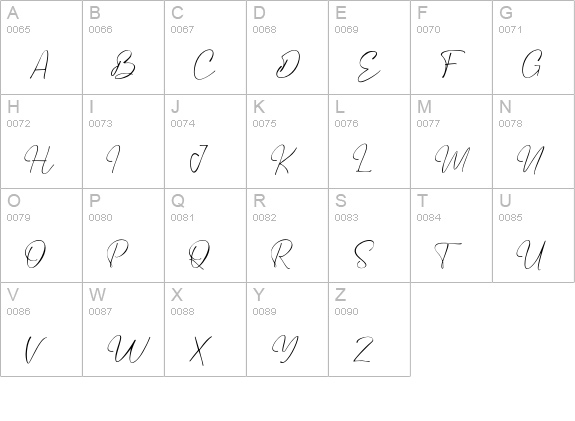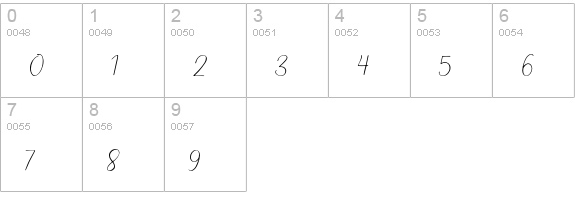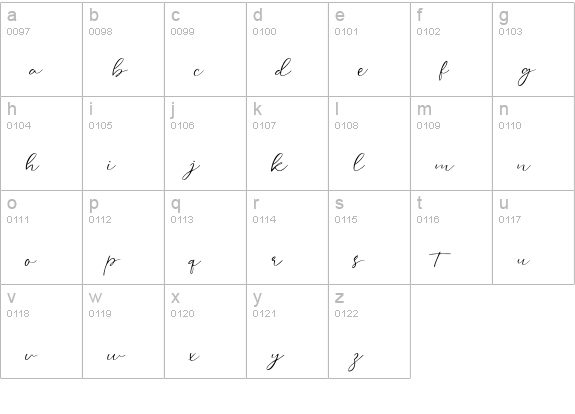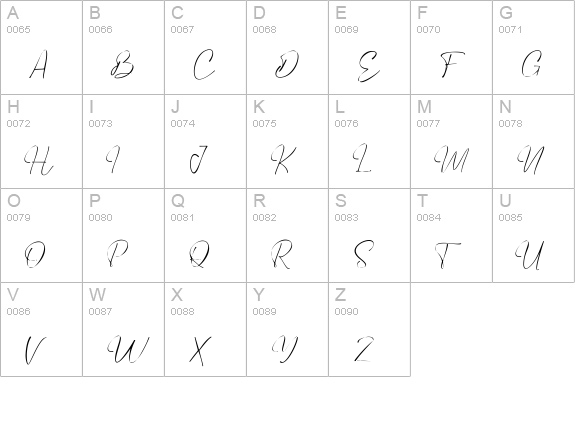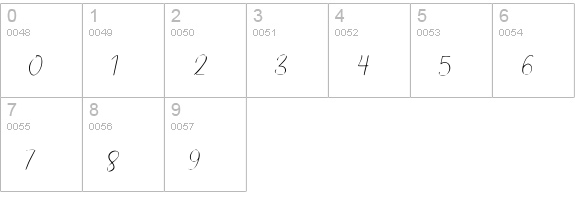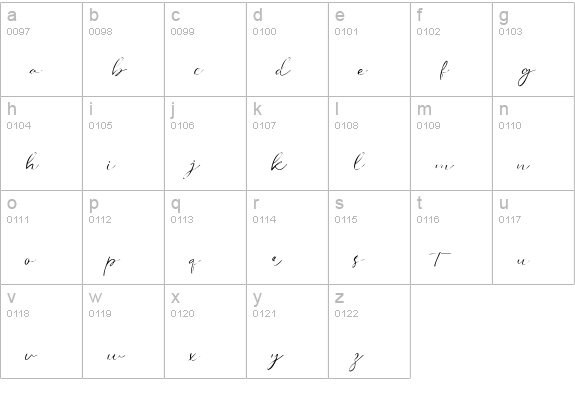
Daventer font is a stunning and versatile typeface that brings a touch of elegance and sophistication to any project. With its clean lines and modern aesthetic, Daventer is perfect for a wide range of design applications, from branding to editorial design. This font features a unique blend of classic and contemporary elements, making it a standout choice for both print and digital projects.